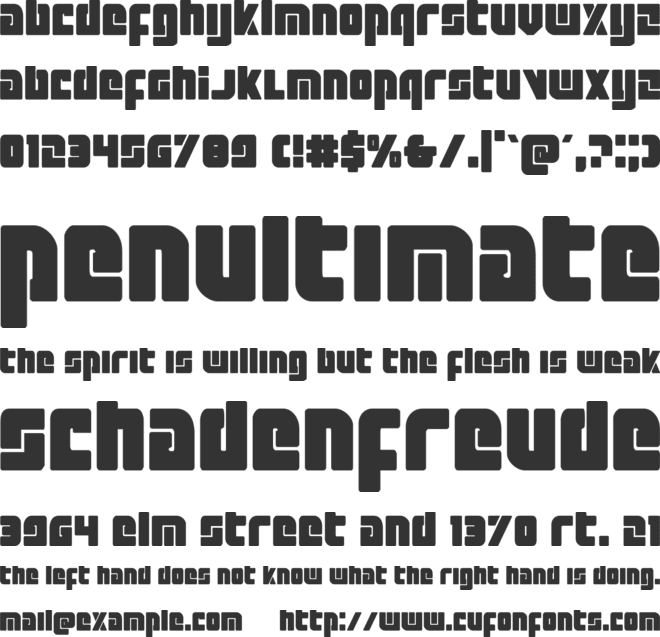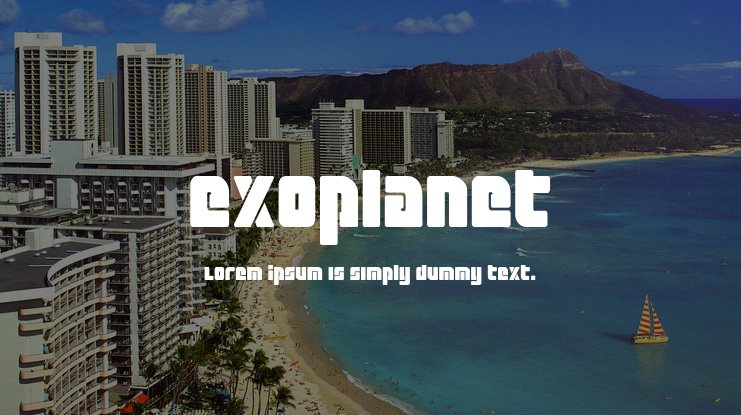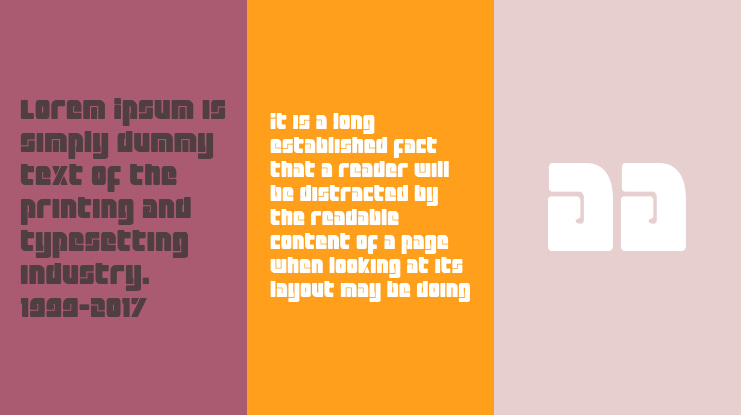
Exoplanet Font Family
Daniel Zadorozny
A sci-fi font with a retro look and feel out of the 70's or 80's. Exoplanet is bold typeface with a touch of stencil effect and comes with a complete Latin character set (including the Euro) and there are several alternate letter forms between the upper and lower cases,